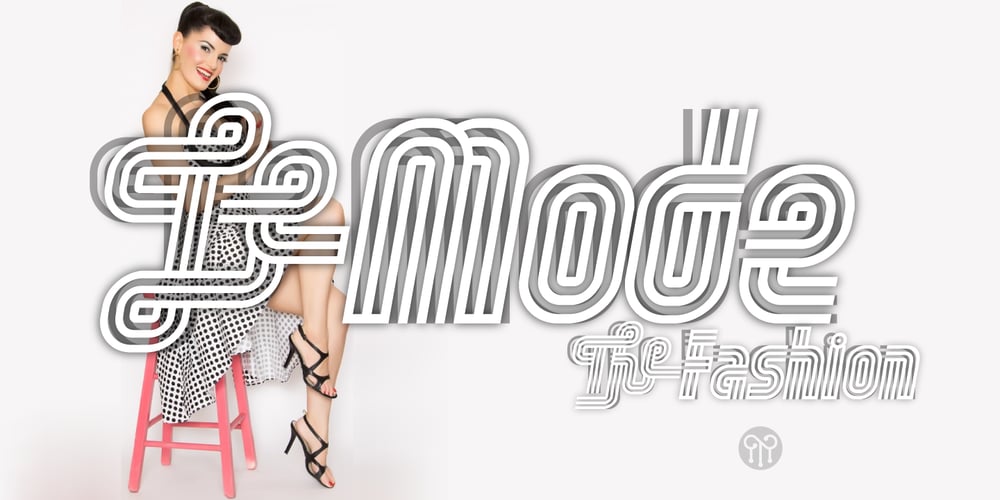
Aliykit Open Font Family was designed by John Moore and published by John Moore Type Foundry. Aliykit Open contains 2 styles and family package options. Aliykit Open a decorative OpenType font generated from geometry with parallel lines of open and closed forms, by the way they can fit inside the Art Deco style but is part of the design influence of Venezuela in the area of art and cinetic art, his set of characters includes letters for western and eastern European languages and Cyrillic, also provides several ligatures that link between them. It is ideal for decorative display headlines to large sizes.